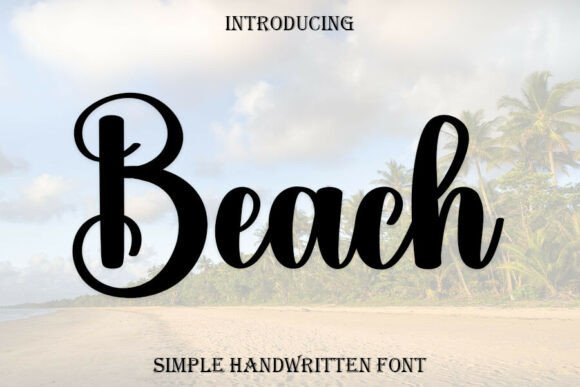
Discover the Charm of Beautiful Beach Font
Remember the moment when you stumbled upon a handwritten note from a loved one, and the emotions it evoked? The way the cursive script danced across the page, speaking directly to your heart? That’s the kind of magic we’re about to unleash with the Beautiful Beach Font.
Beautiful Beach is a stunning handwritten font that embodies the carefree spirit of a seaside escape. With its flowing lines and elegant curves, it’s the perfect tool for adding a personal touch to your designs. Whether you’re crafting invitations, logos, or social media posts, this font will transport your audience to a world of serenity and style.
Beautiful Beach Font Key Features
- Font Family: Beautiful Beach Font is a unique, handwritten font designed to evoke the feeling of a tropical beach. It’s perfect for creating a relaxing and calming atmosphere in your designs.
- Unique Characteristics: Beautiful Beach Font features a flowing, handwritten style with subtle brushstrokes and imperfections, giving it a personal and organic feel.
- Characters: The font includes a wide range of characters, including uppercase and lowercase letters, numbers, punctuation marks, and special characters, making it suitable for a variety of design applications.
Beautiful Beach Font Review
Overall, I think the Beautiful Beach Font is a lovely addition to any project that requires a beachy vibe. ✨ The font’s cursive and playful nature immediately evokes a sense of relaxation and tranquility. It’s perfect for creating a sense of warmth and hospitality in travel, lifestyle, or wellness branding.
- ✨ Beautifully crafted letterforms with a natural, handwritten feel
- ✨ Suitable for both digital and print applications
- ✨ Can be used in a variety of contexts, from invitations to signage
- ⚠️ Limited font weights and styles may limit its versatility
- ⚠️ May not be suitable for projects that require a more formal or professional tone
- ⚠️ Some users may find the font’s flowing connections between letters difficult to read in certain contexts
Overall, I’d give the Beautiful Beach Font 4 out of 5 stars. While it has some limitations, its unique charm and versatility make it a great choice for projects that need a touch of whimsy and personality.
For best results, pair the font with a light background and soft colors to create a beachy vibe.
For best results, use the font in combination with beach-themed graphics and colors.
For best results, use the font in headings and titles to add a touch of beachy charm.
The “Beautiful Beach Font” is perfect for:
– Beach-themed invitations and party decorations
– Summer-themed marketing materials and advertisements
– Travel brochures and itineraries
– Personalized beach-themed stationery and gifts